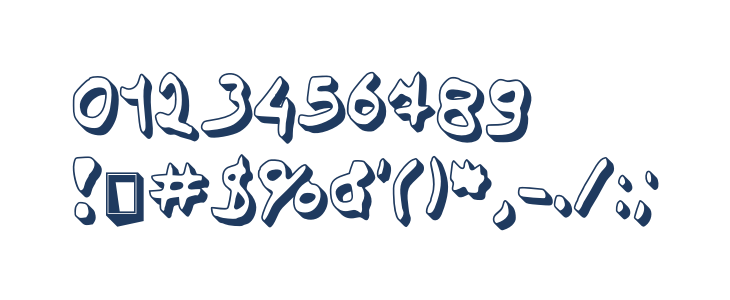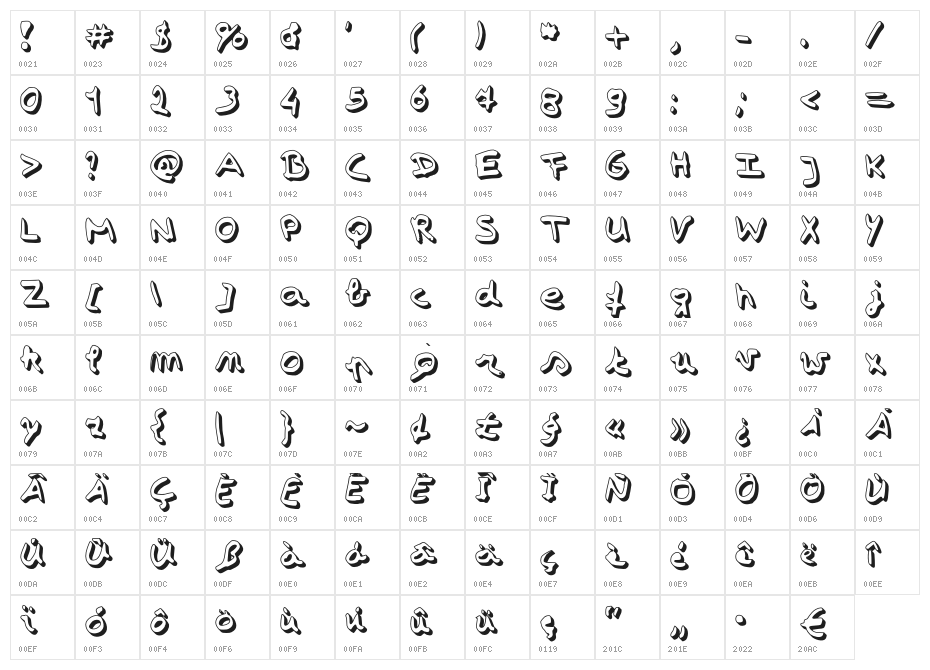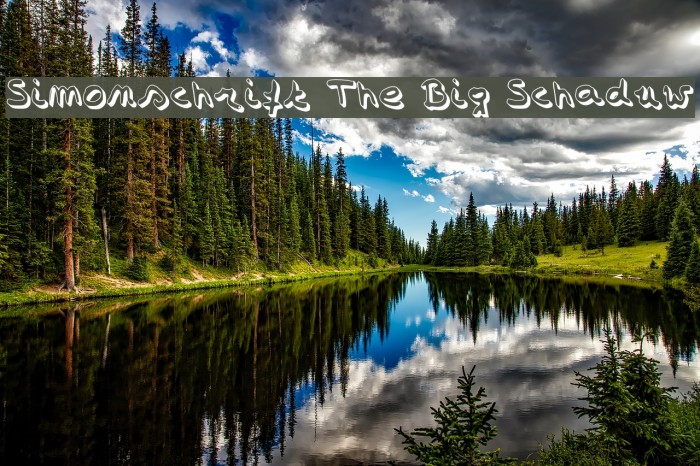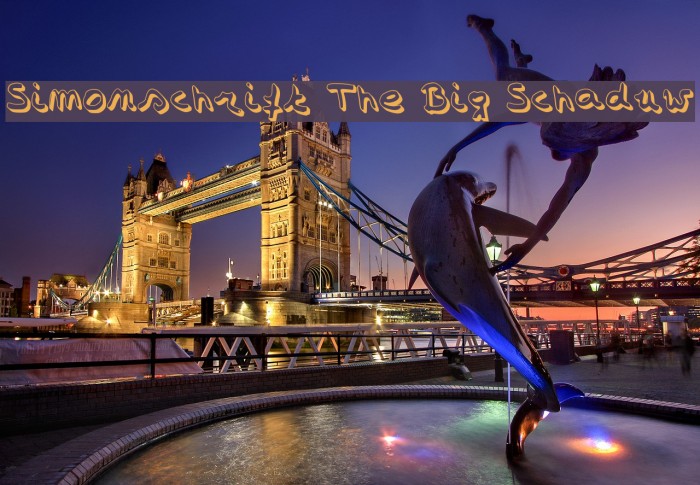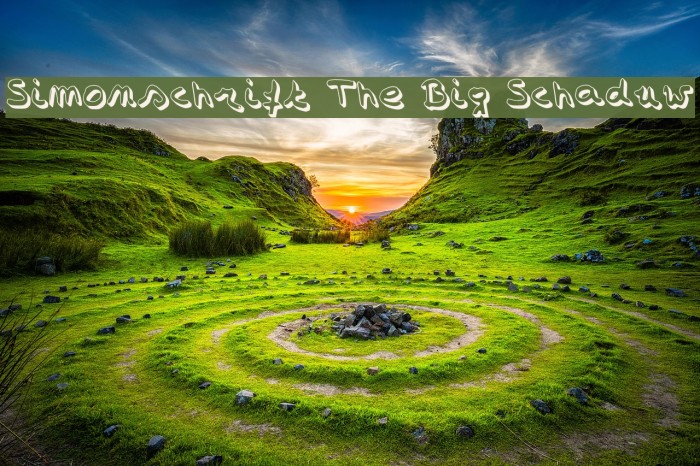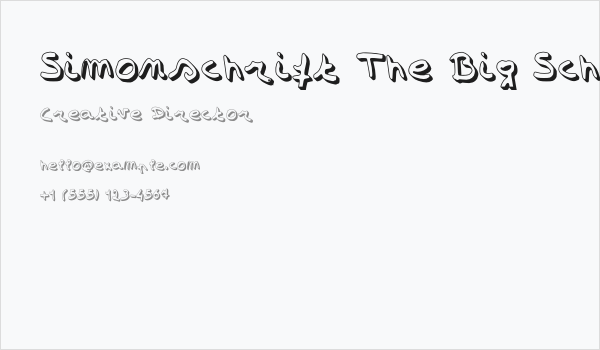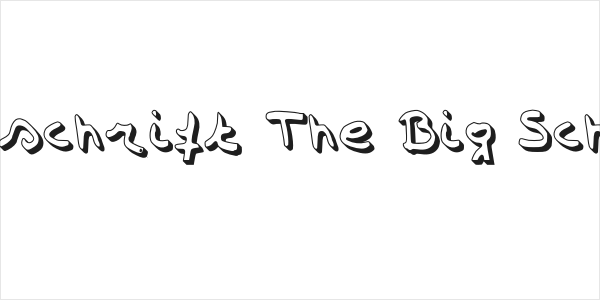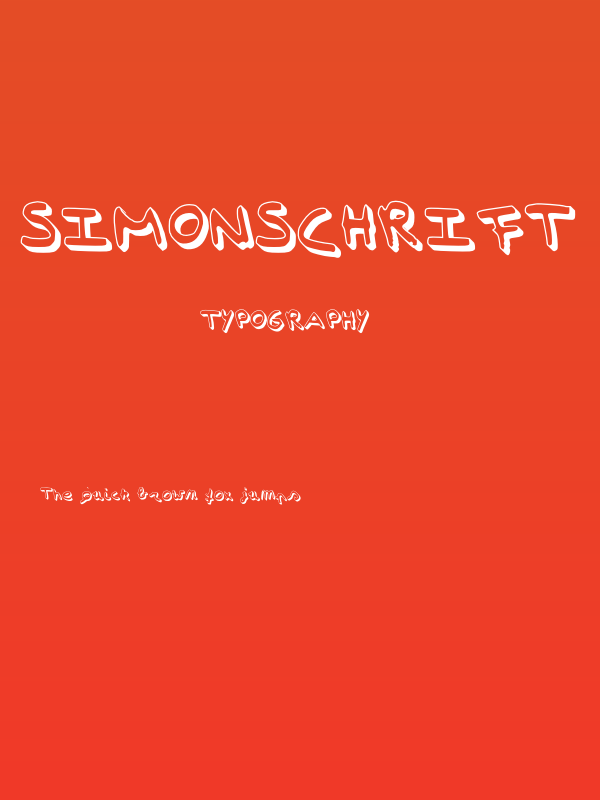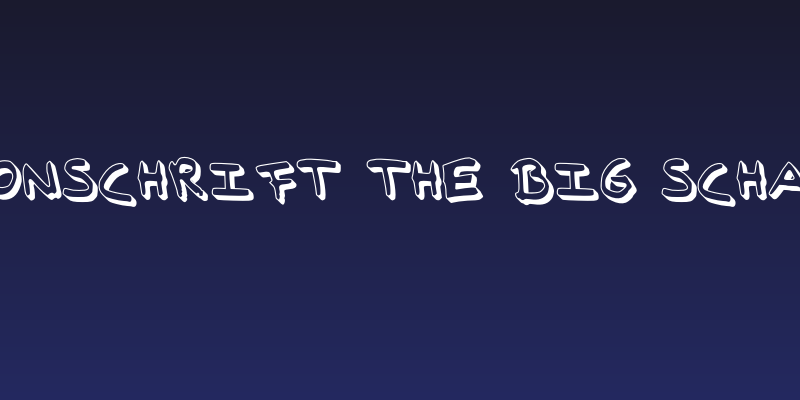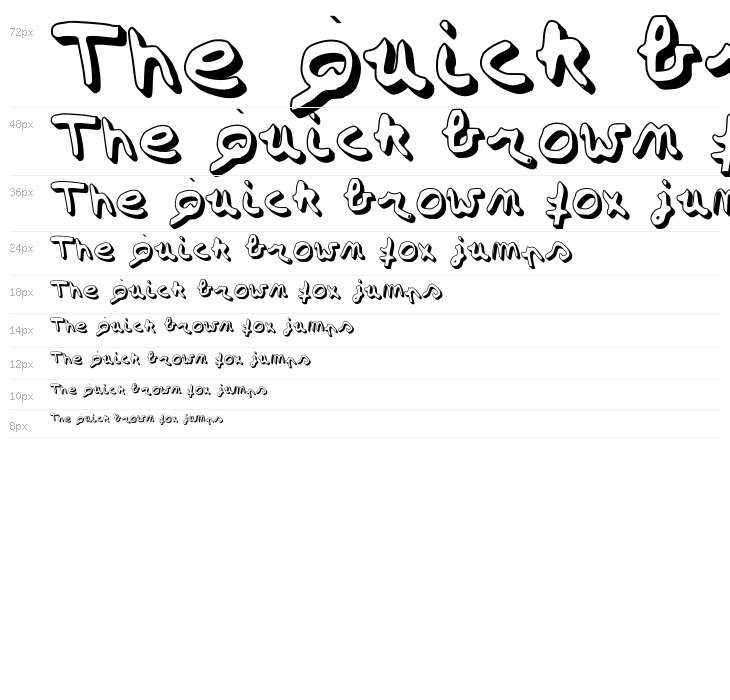
Simonschrift The Big Schaduw Font
Simonschrift The Big Schaduw Description
This font features a playful and bold design with a shadow effect that gives it a three-dimensional appearance. The characters are rounded and slightly irregular, adding a whimsical and informal touch. The uppercase and lowercase letters maintain a consistent style, with exaggerated curves and a hand-drawn feel. The numerals and special characters follow the same playful aesthetic, making the font suitable for creative and fun projects. The shadow effect enhances the visual impact, making it stand out in various applications.
| Proposed Projects | Ideal for children's books, comic strips, playful branding, and creative posters. |